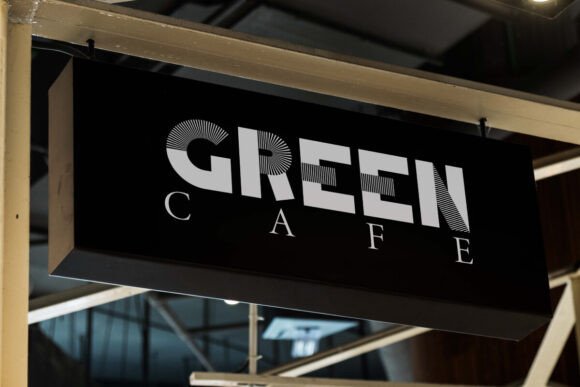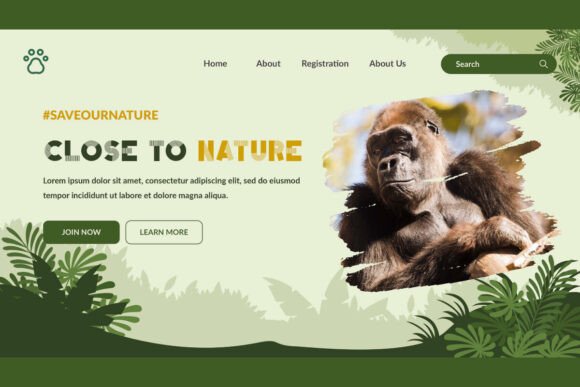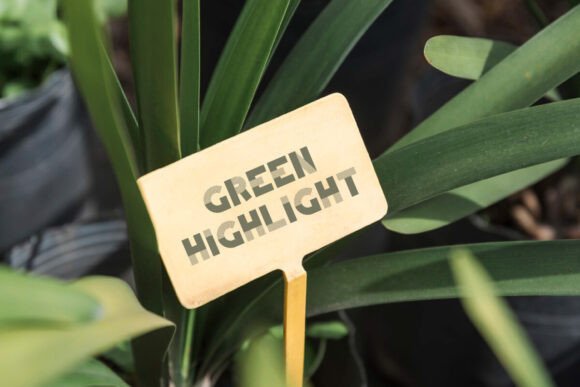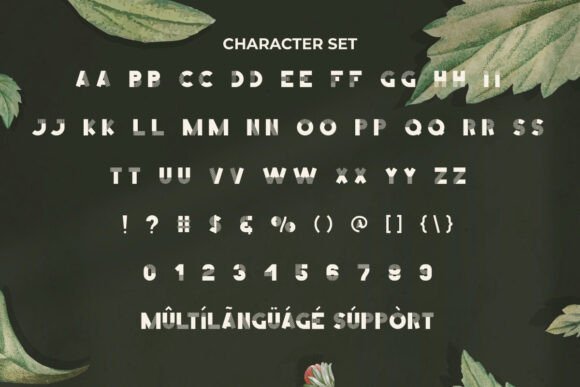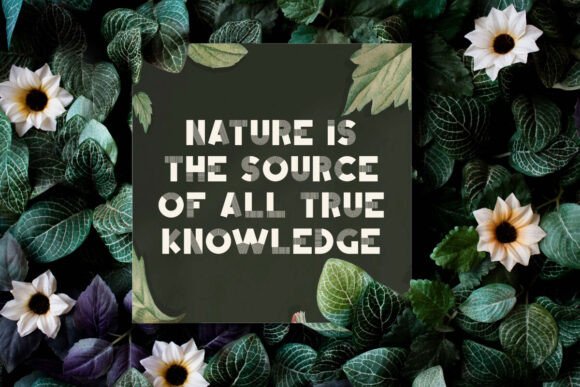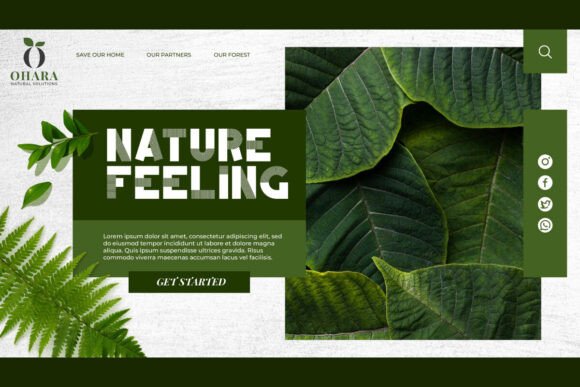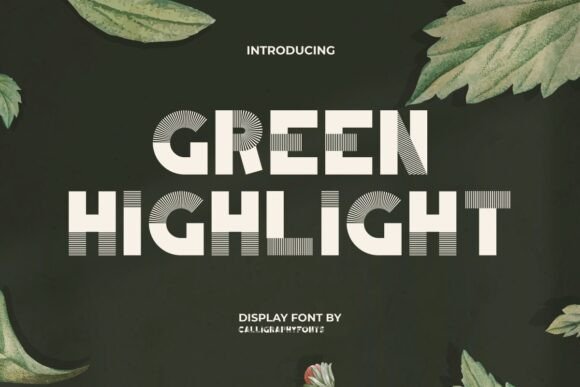
Introducing Green Highlight Font: Elevate Your Designs with a Unique Modern Display Font
In the world of typography, a good font can make all the difference in creating visually stunning designs. For designers and crafters looking to add a touch of modernity and creativity to their projects, Green Highlight Font is an excellent choice. This modern display font boasts a unique style that is sure to capture attention and leave a lasting impression.
The Unique Style of Green Highlight Font
Green Highlight Font is a block font that is accompanied by lines that resemble a spring spiral effect in certain places on each letter. This innovative design element creates a highlight effect that adds depth and visual appeal to the font. The result is a font that is not only modern and sleek but also eye-catching and engaging.
One of the standout features of Green Highlight Font is its versatility. This font can be used in a wide range of design applications, including:
- Billboards and large-scale signage
- Blogs and website headers
- Brand logos and branding materials
- Brochures and flyers
- Cards and invitations
- Covers and packaging design
- Headers and titles
- Product labels and stickers
- Quotes and posters
- Screen prints and signage boards
- Stationery and letterheads
Whether you’re working on a large-scale advertising campaign or a small DIY project, Green Highlight Font is the perfect choice.
Why Choose Green Highlight Font?
So, what sets Green Highlight Font apart from other fonts on the market? Here are just a few reasons why designers and crafters love this font:
- Unique style: Green Highlight Font has a one-of-a-kind design that is sure to make your projects stand out.
- High visibility: The highlight effect created by the spring spiral lines makes this font highly visible, even from a distance.
- Creative freedom: With Green Highlight Font, you can add a touch of personality and whimsy to your designs.
- Ease of use: This font is easy to read and works well in a variety of design applications.
Tips for Using Green Highlight Font
To get the most out of Green Highlight Font, here are a few tips to keep in mind:
- Use it as a statement piece: Green Highlight Font is perfect for making a bold statement in your designs. Use it as a headline or title font to grab attention.
- Pair it with complementary fonts: For a cohesive look, pair Green Highlight Font with complementary fonts that share a similar style or aesthetic.
- Experiment with colors: While the green highlight effect is a standout feature of this font, don’t be afraid to experiment with different colors to create a unique look.
Green Highlight Font is a modern display font that is sure to elevate your designs to the next level. With its unique style, versatility, and creative freedom, this font is perfect for designers and crafters looking to add a touch of personality to their projects. Whether you’re working on a large-scale advertising campaign or a small DIY project, Green Highlight Font is an excellent choice. So why wait? Download Green Highlight Font today and start creating stunning designs that capture attention and leave a lasting impression.